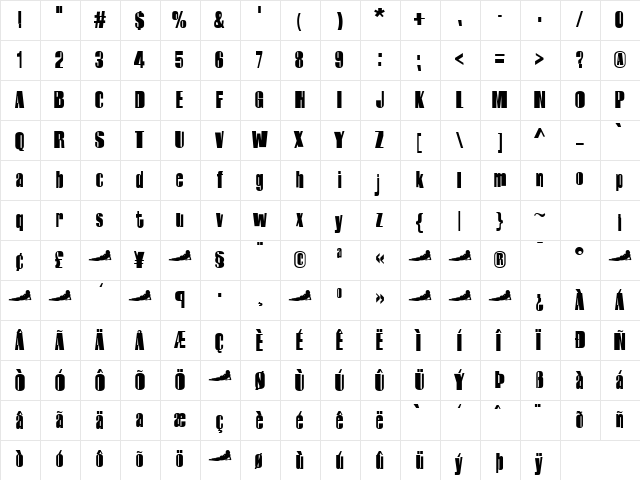
Harlem Bold
Design Context for Harlem Typeface
Harlem offers clean, dependable letterforms without strong stylistic allegiance, making it a practical choice for designers who need flexibility. The heavy weight commands attention and anchors typographic hierarchies.